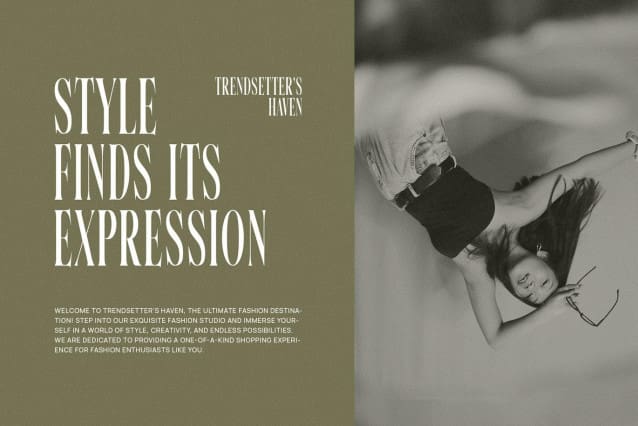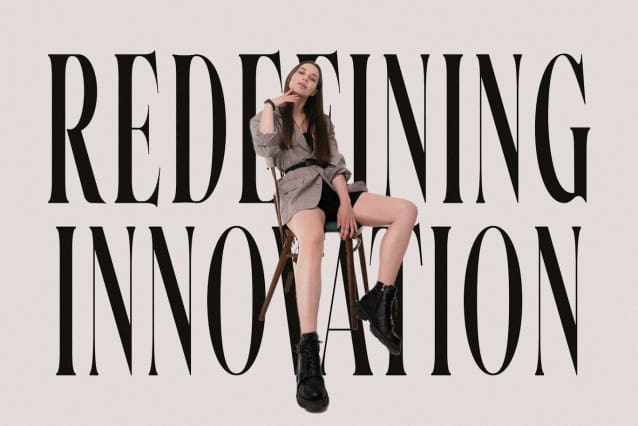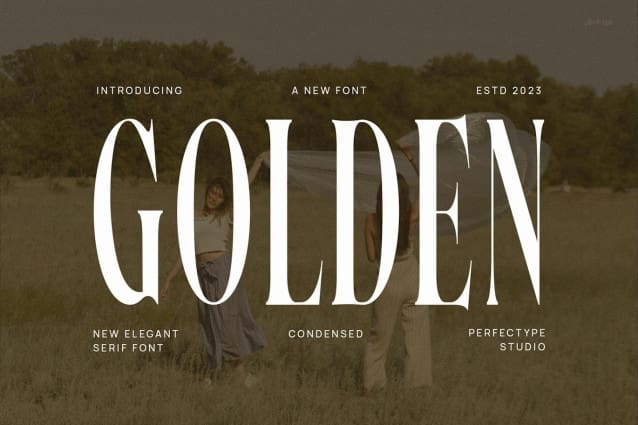
Golden Elegant Font
Golden Elegant Font, is a unique and very elegant font for branding and logo design An elegant serif font combined with a chic and modern style. This font type is perfect for your various needs like branding projects, logos, wedding designs, social media posts, advertisements, product packaging, product designs, labels, photography , watermarks, invitations, stationery and any project created with a high level of readability. You won’t be disappointed if you buy this font!